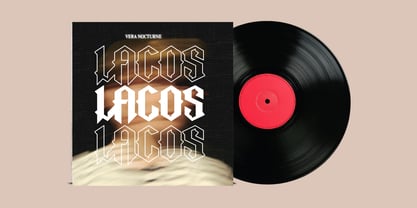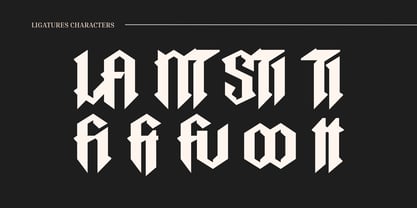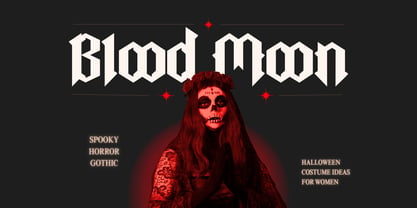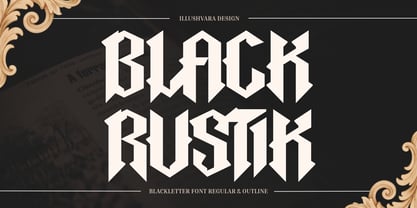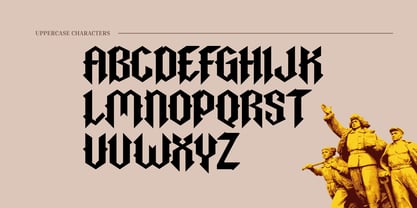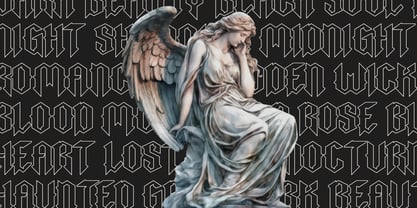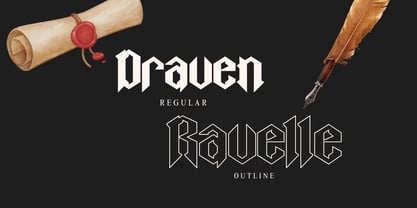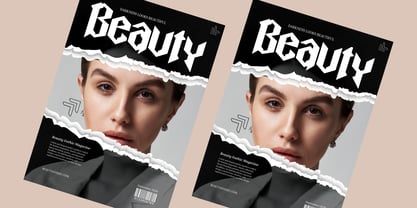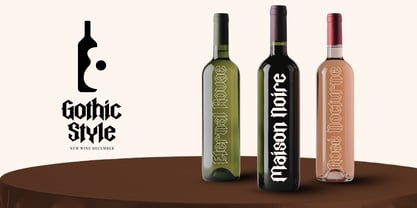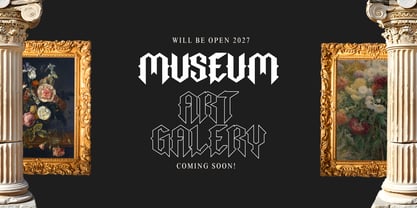
Black Rustik
by Illushvara
The Black Rustik Font Family was designed by Bayu Suwirya and published by Illushvara. Black Rustik contains 2 styles and family package options. More about this family
A bold and elegant Black Rustic font created for designers who want a dark, mysterious, and timeless aesthetic. Featuring Regular and Outline styles, this typeface offers versatile options for creating powerful headlines, logos, and expressive typography. Perfect for branding, fashion, magazines, posters, album covers, tattoos, packaging, labels, and editorial designs. The Regular style delivers a classic blackletter character, while the Outline style adds a dramatic decorative touch. Ideal for luxury, gothic, vintage, metal, and alternative-inspired projects.
Designers: Bayu Suwirya
Foundry: Illushvara